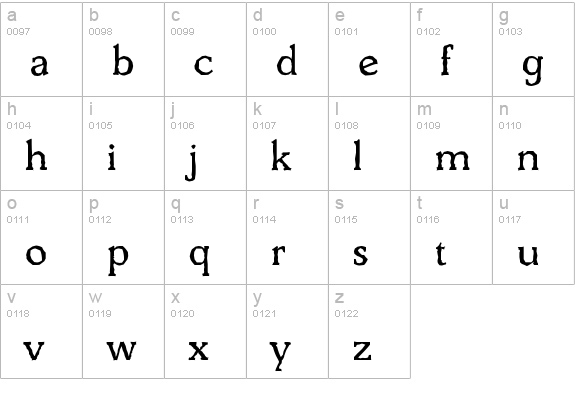
DerringerAntique-Regular is the standard, neutral variant in the DerringerAntique typeface family \xE2\x80\x94 well suited to general body text, paragraphs, and standard typographic work.
DerringerAntique-Regular is a classic and elegant font that exudes a vintage charm with its timeless appeal. This typeface embodies a sense of sophistication and refinement that is perfect for adding a touch of nostalgia to any design project. Its intricate details and graceful curves make it a versatile choice for a wide range of applications, from branding to invitations to packaging. What makes DerringerAntique-Regular even more appealing is that it is available for free download at FontsMarket.com. This means that you can easily access this beautiful font and incorporate it into your creative endeavors without any cost. Don't miss out on the opportunity to enhance your designs with the beauty of DerringerAntique-Regular – download it for free today!